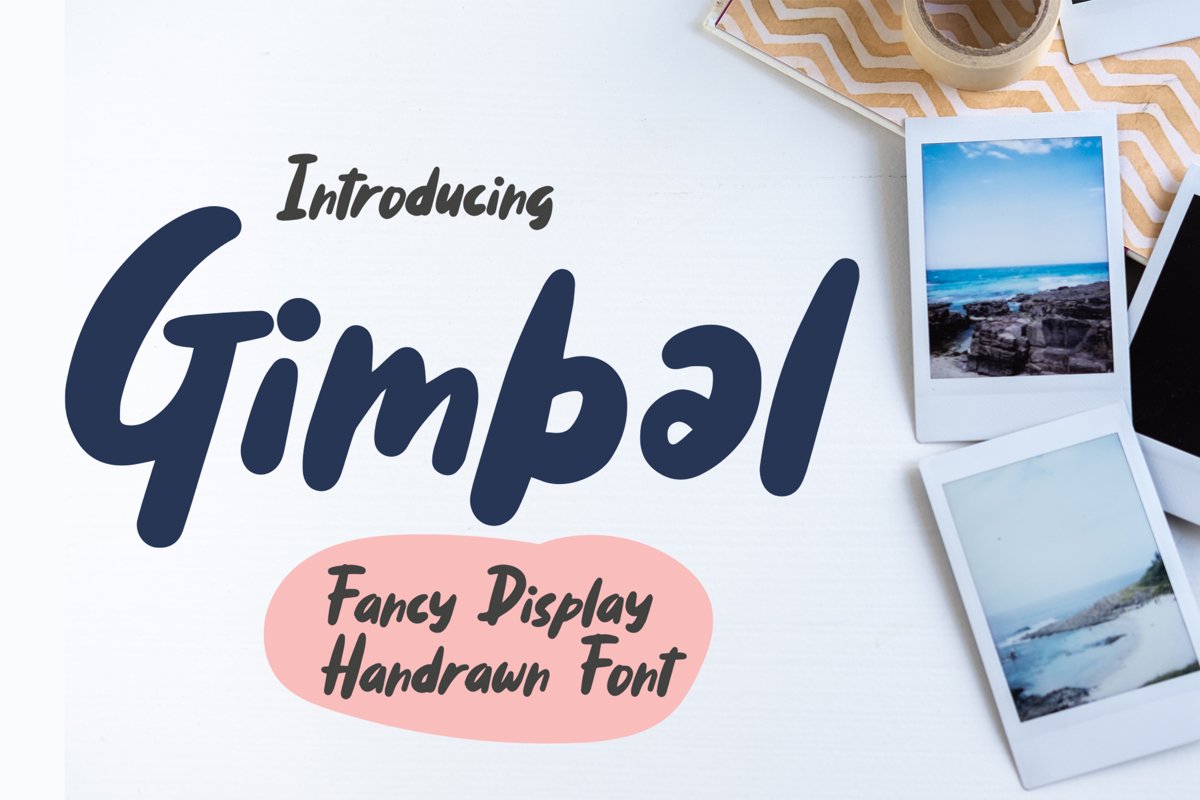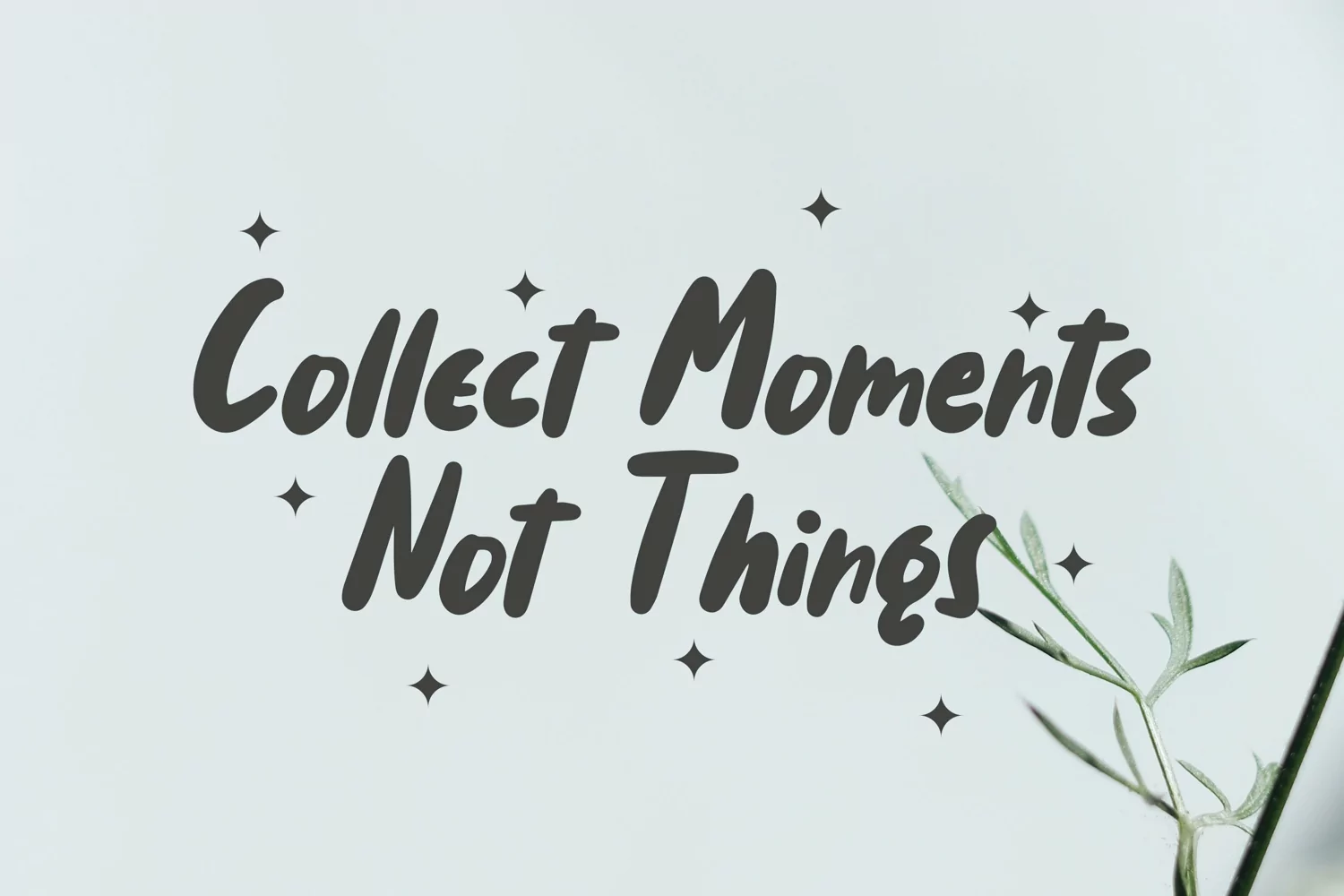
Gimbal - Fancy Display Handrawn Font that contain lowercase, uppercase, symbol, and also support multi language. There’s a lot ligatures in this font. This Font also comes with ligatures, alternates and many more. this font suitable for fashion, branding, catalog and other design what you want.
Gimbal